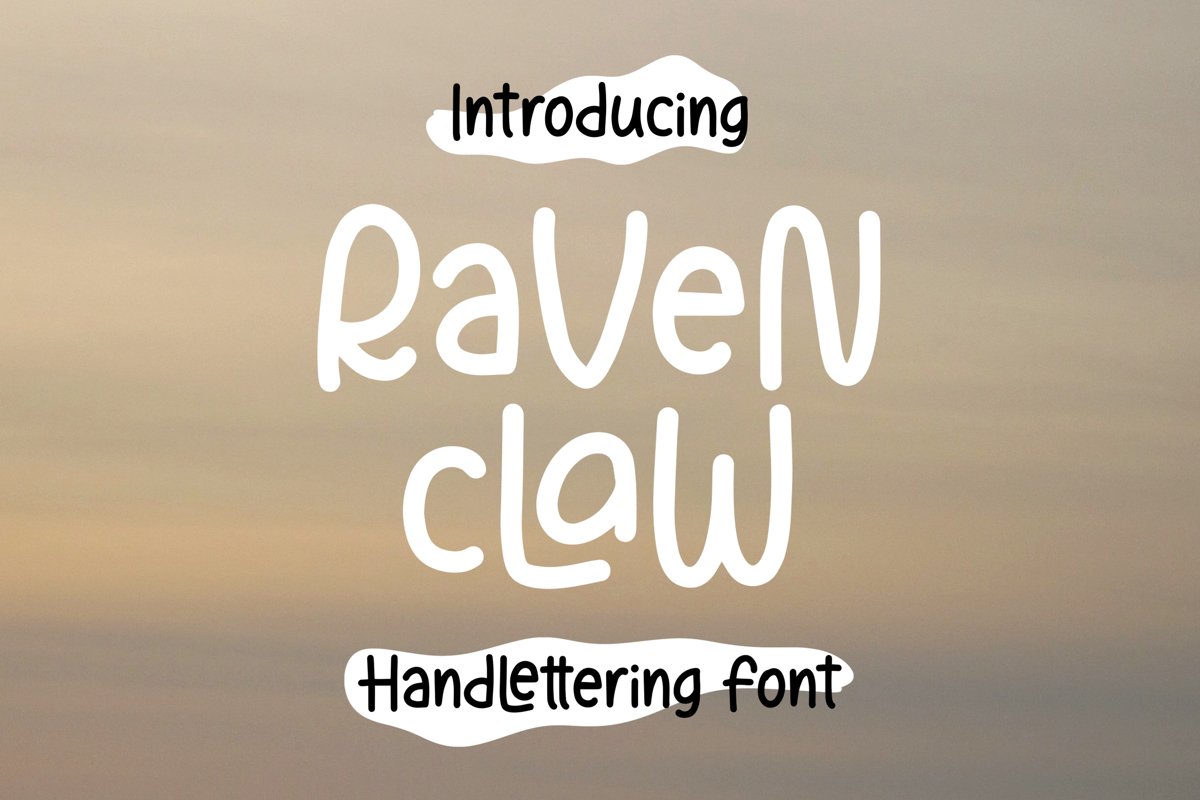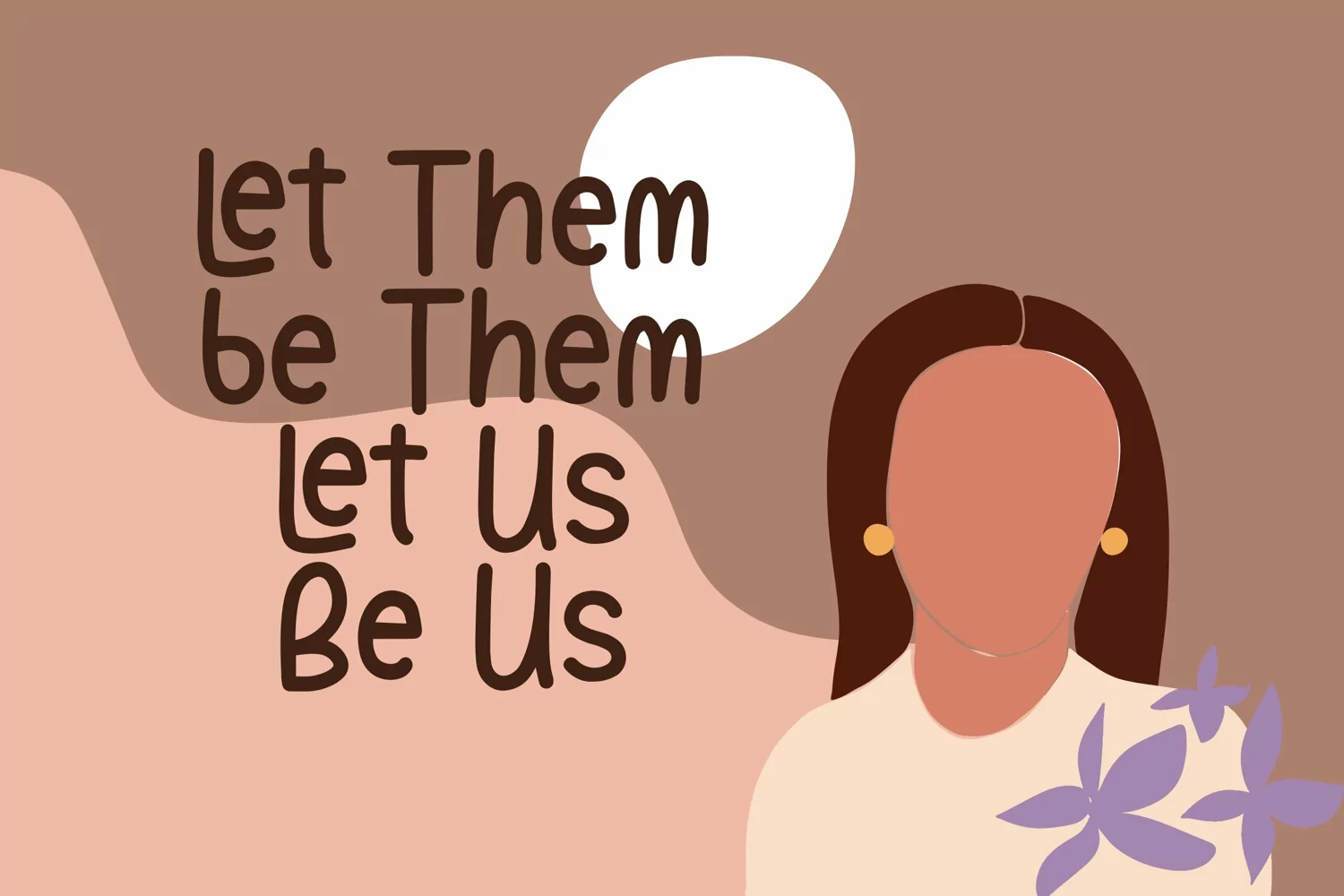
Ravenclaw - Handlettering Font that contain lowercase, uppercase, symbol, and also support multi language. There’s a lot ligatures in this font. This Font also comes with ligatures, alternates and many more. this font suitable for fashion, branding, catalog and other design what you want.